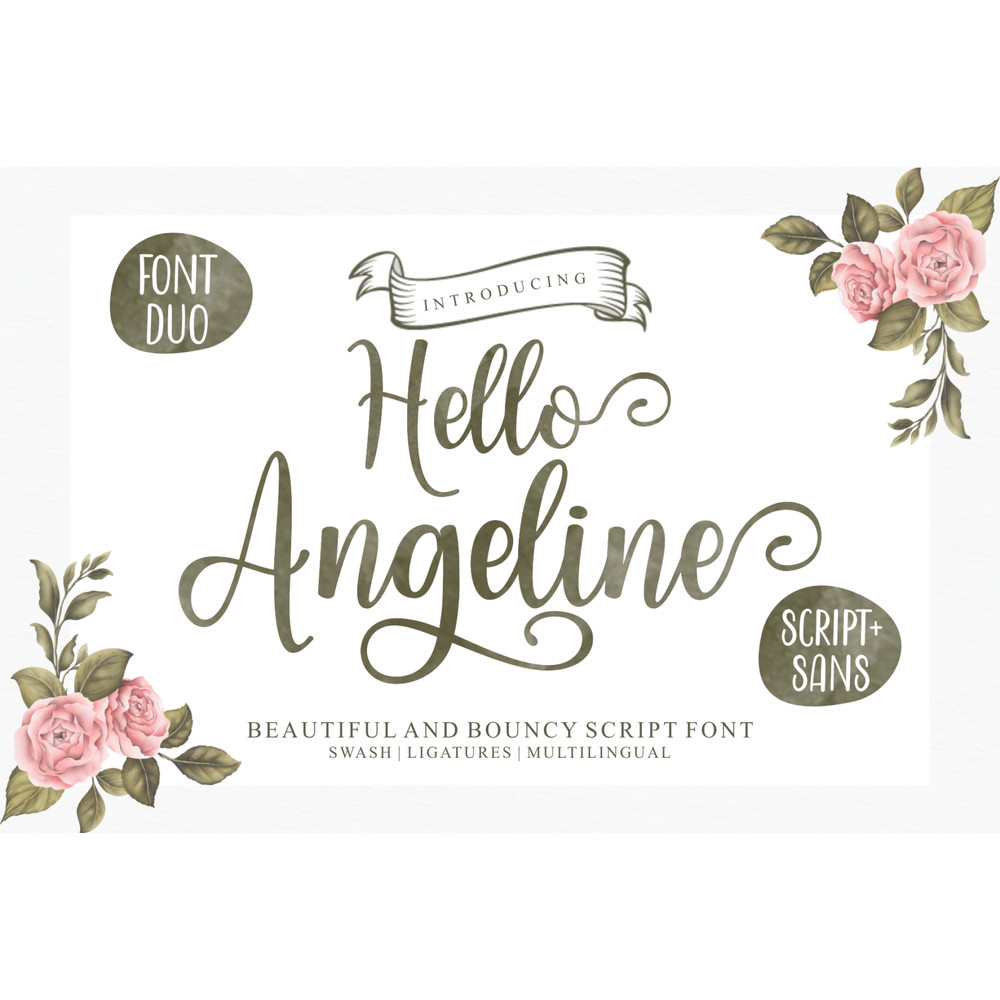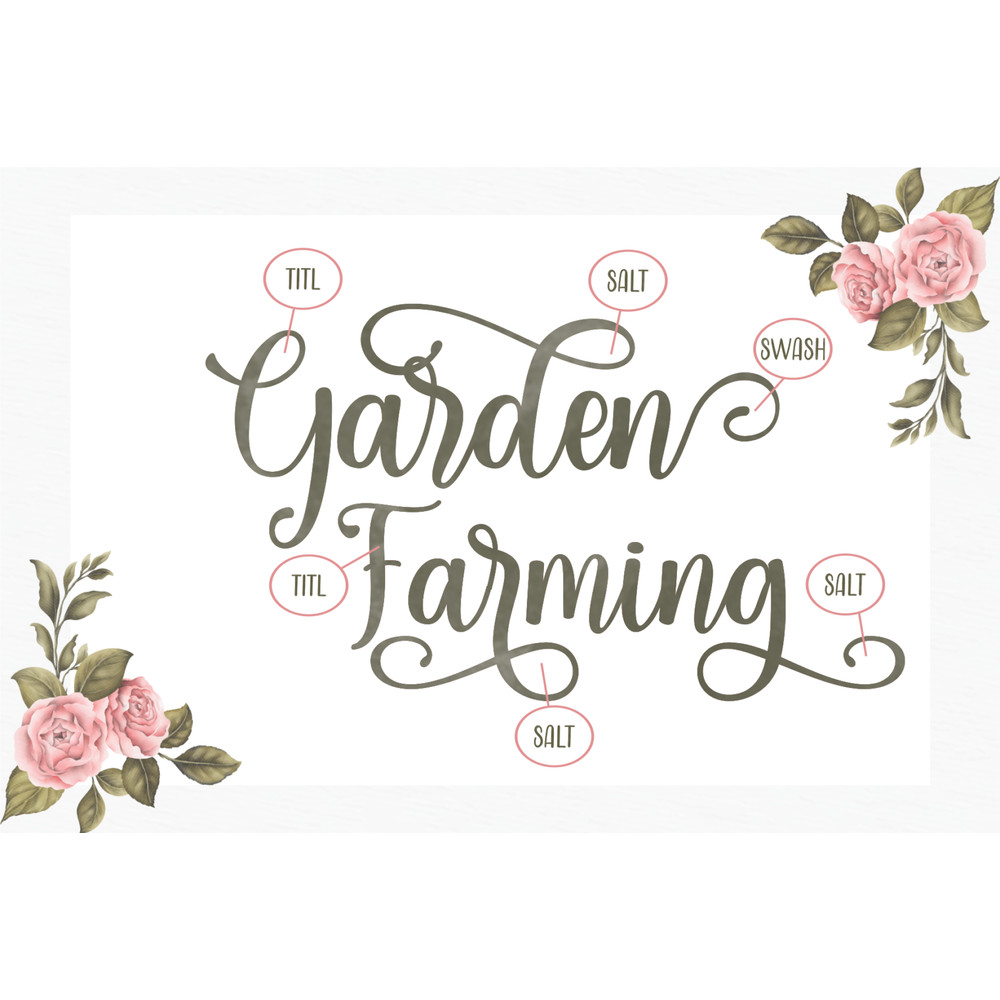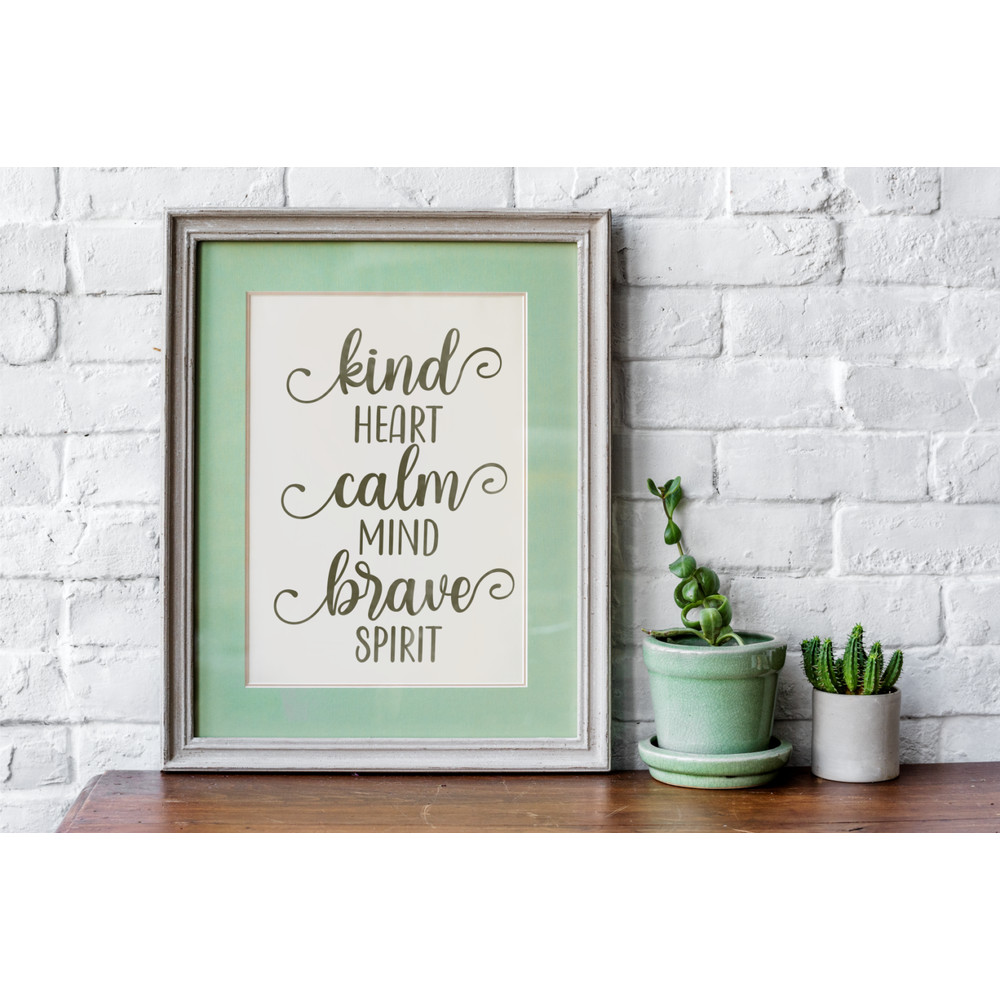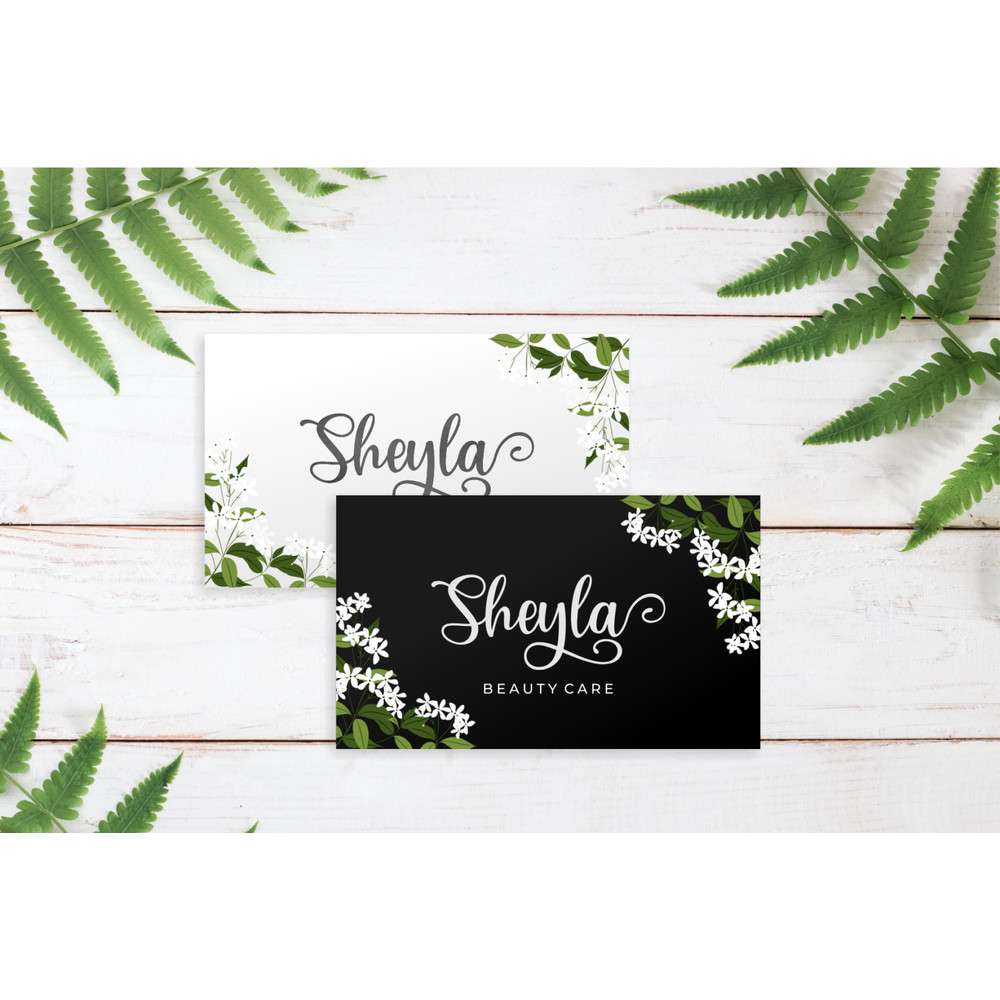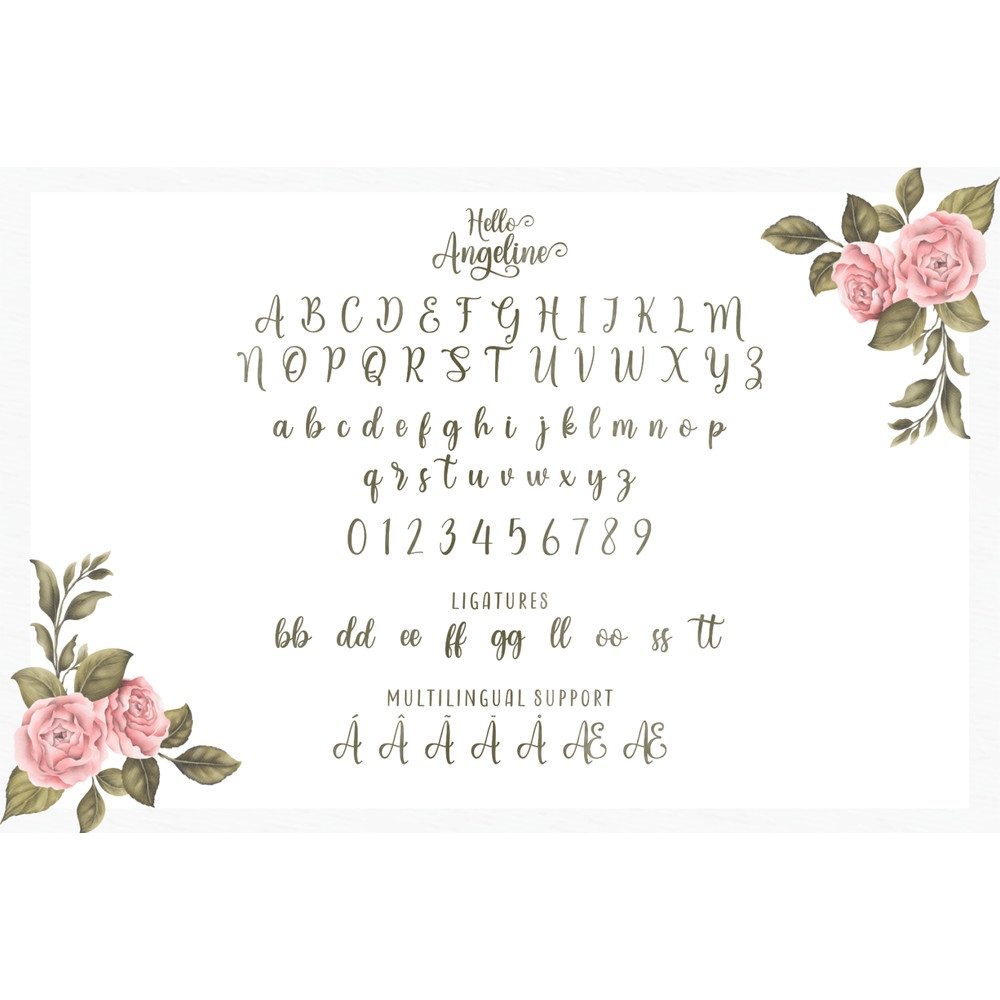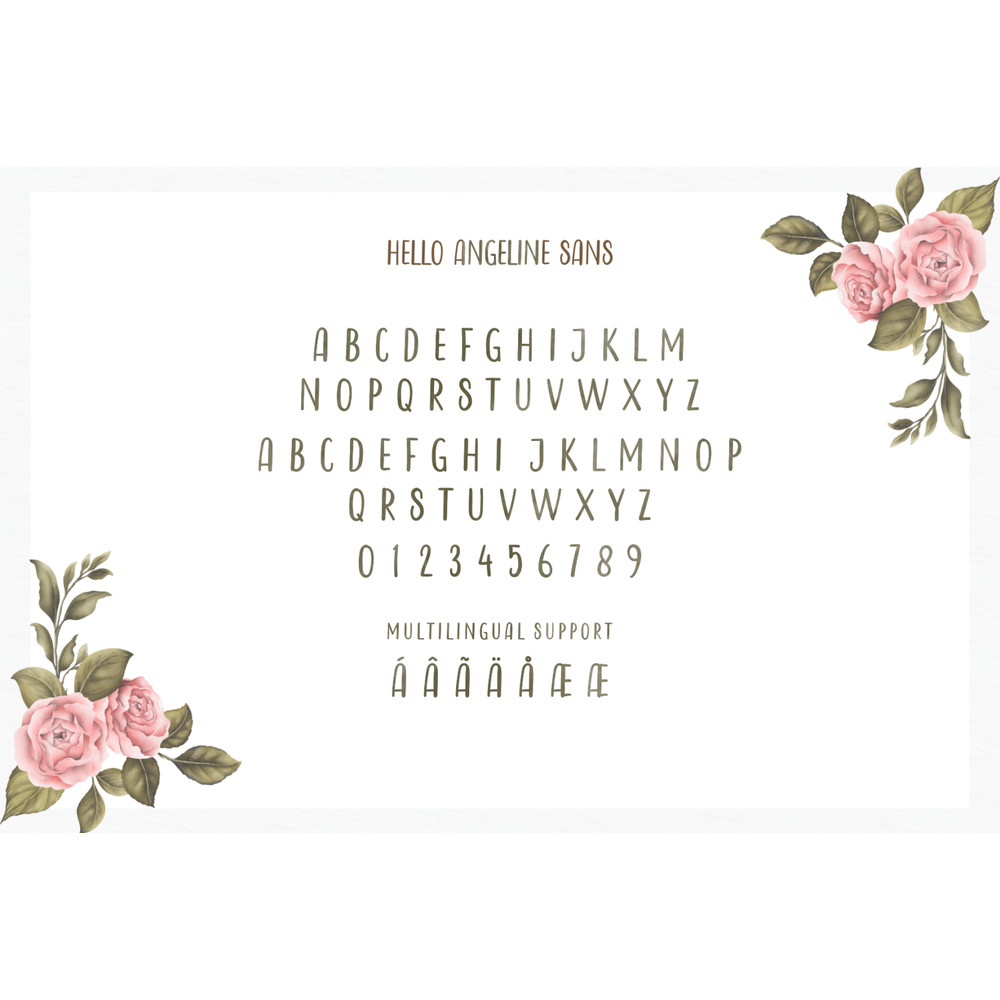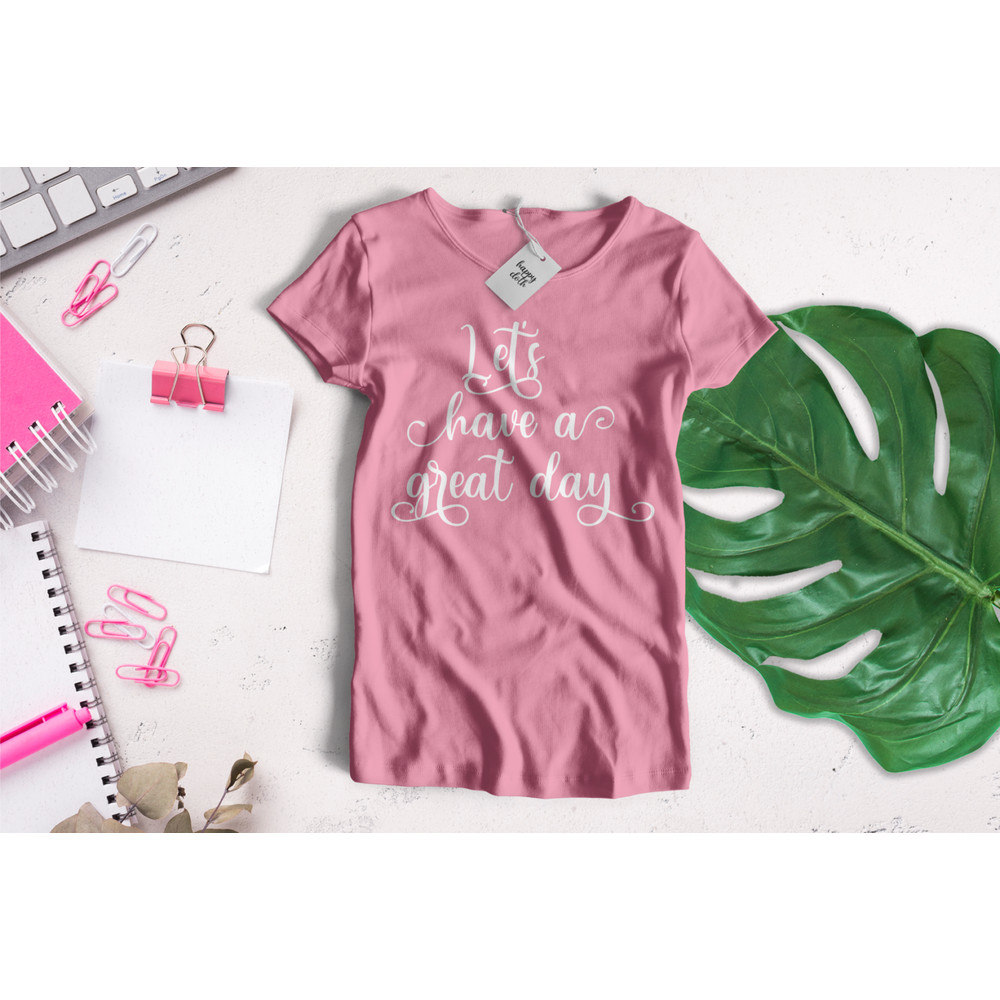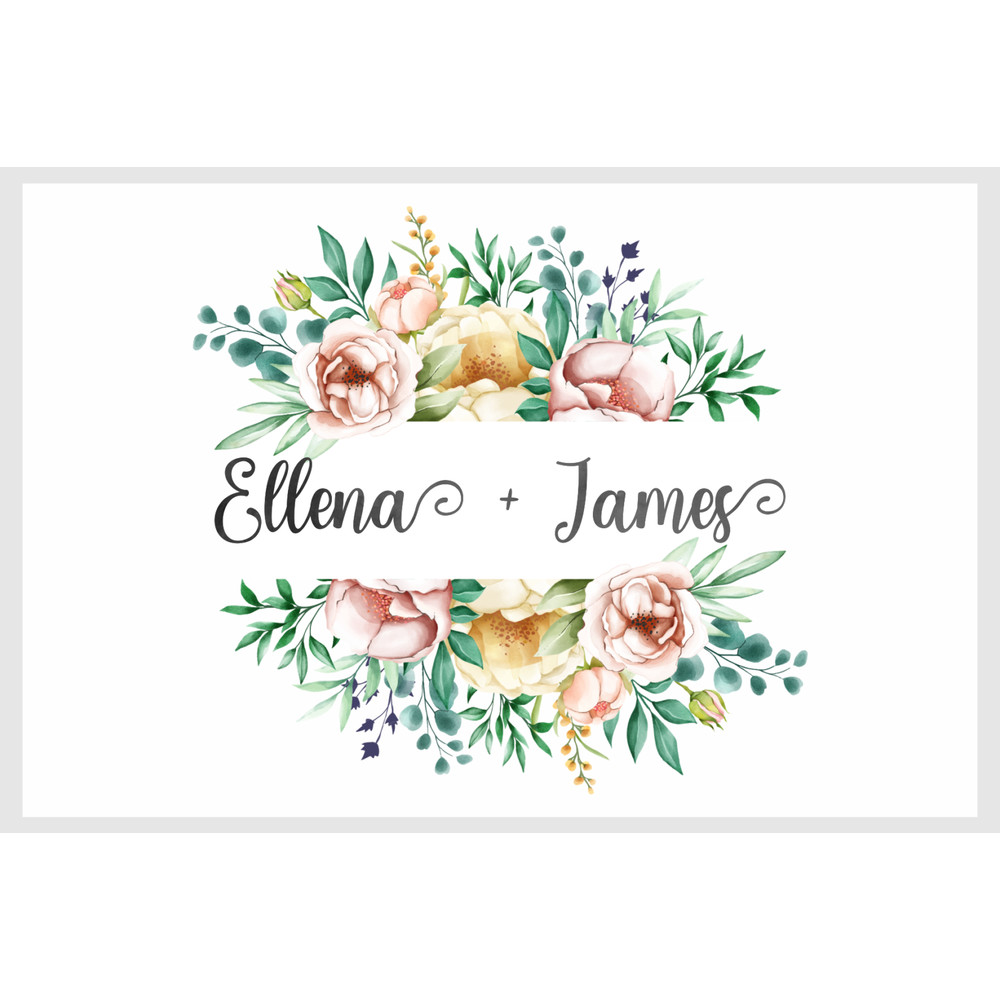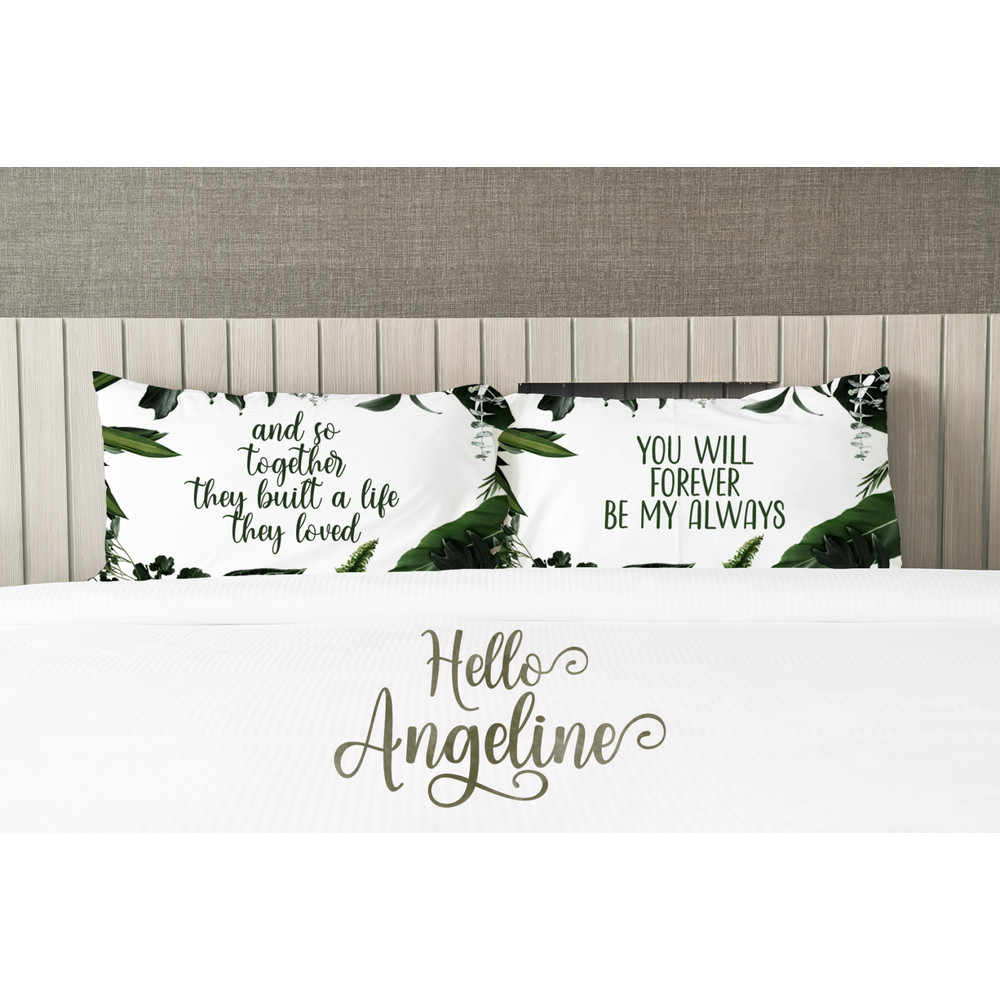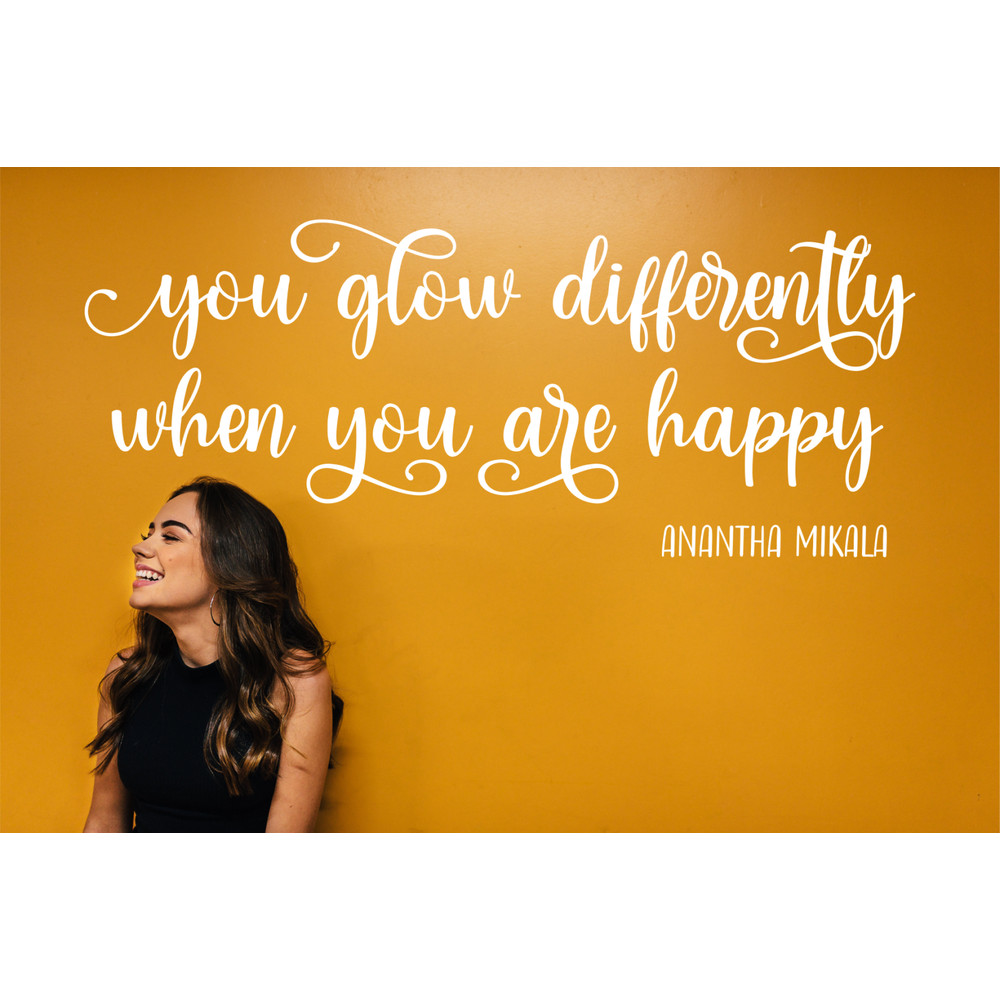
Hello Angeline Font Duo Trending Fonts - Digital Font
Introduce our newest product ‘Hello Angeline Font Duo’ with many alternatives and ligature perfect for logos, websites, watermarks, quotes, branding, crafting, clothing/fashion, wedding designs, and more.